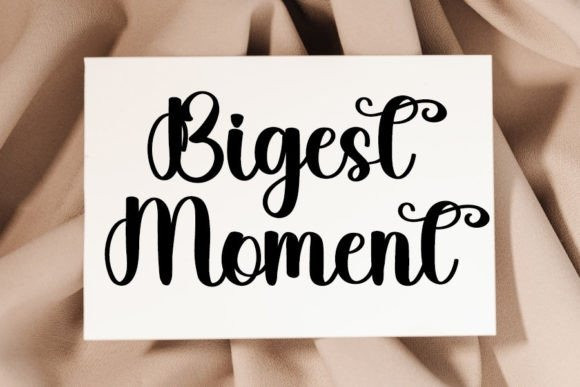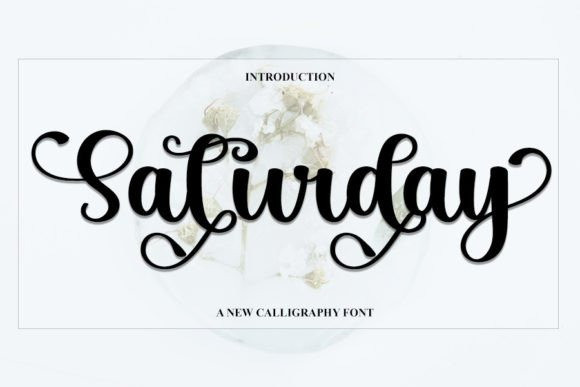
Saturday Calligraphy Typeface
Saturday Calligraphy Typeface is a gorgeous and elegant handwritten font. Use it for any design projects that require a charming appearance!